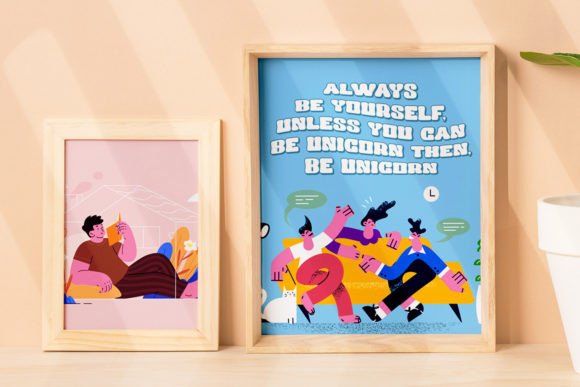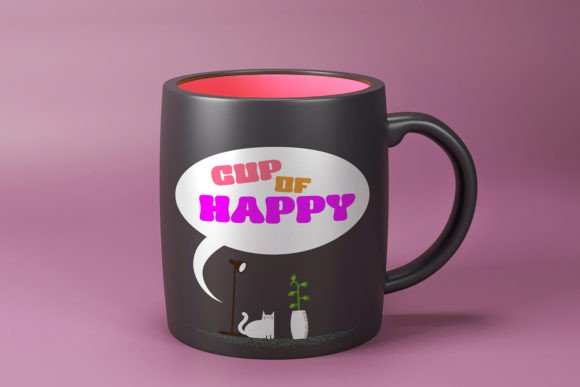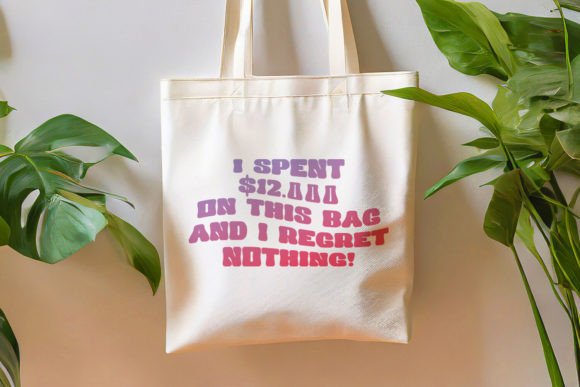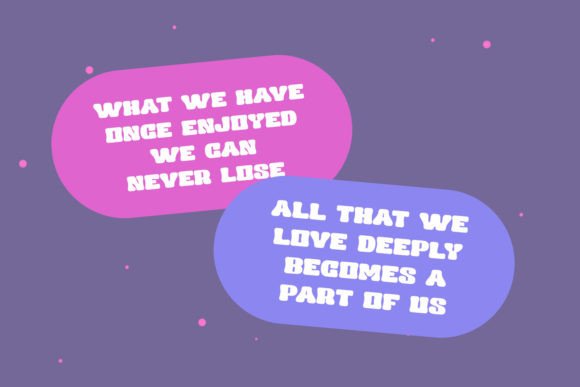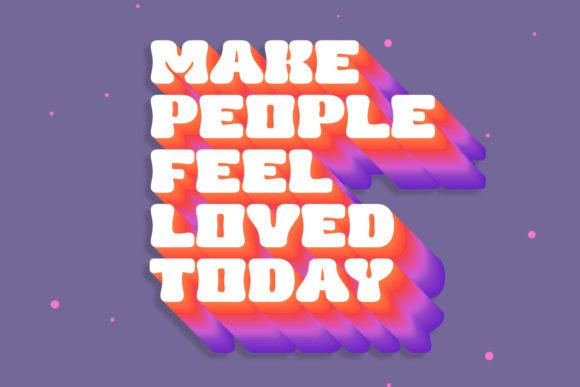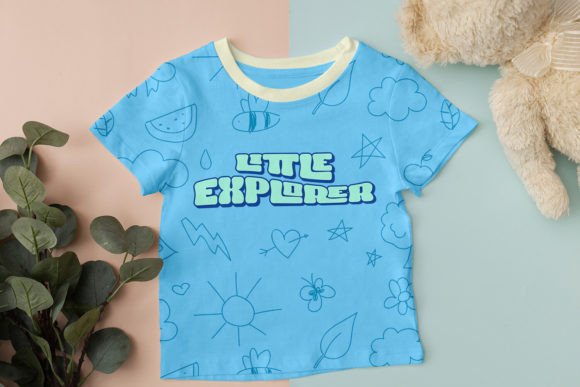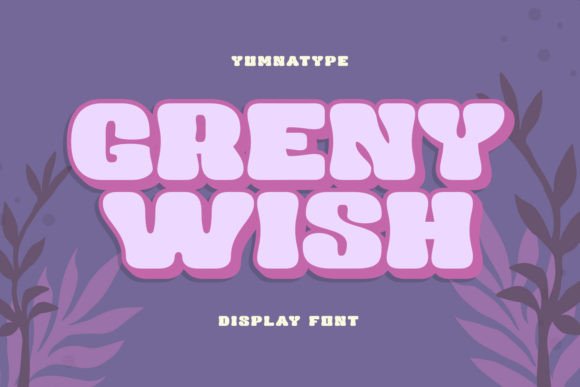
Introducing Greny Wish Font: The Ultimate Display Font for Bold Statements
In the world of typography, fonts play a crucial role in conveying messages, expressing emotions, and creating lasting impressions. For designers and crafters, finding the right font can make all the difference in their creative projects. If you’re looking for a font that exudes confidence, strength, and friendliness, look no further than Greny Wish Font. In this article, we’ll explore the features, benefits, and uses of Greny Wish Font, and why it’s an excellent choice for your next design project.
What is Greny Wish Font?
Greny Wish Font is an all-caps display font designed to make a strong statement. With a very bold weight, this font commands attention and delivers a powerful presence in any design. Its striking design makes it an excellent choice for creating memorable and eye-catching visuals. Whether you’re working on a branding project, advertising campaign, or social media graphics, Greny Wish Font is sure to leave a lasting impression.
Key Features of Greny Wish Font
So, what sets Greny Wish Font apart from other fonts? Here are some of its key features:
• Bold Weight: Greny Wish Font has a very bold weight, making it perfect for headlines, titles, and other display text.
• Low Contrast: The low contrast ensures a cohesive and solid appearance, making it easy to read and understand.
• Rounded Shapes: The rounded shapes add a friendly touch to the font, making it suitable for a wide range of design projects.
• All-Caps: Greny Wish Font is an all-caps font, making it perfect for creating bold and attention-grabbing text.
Benefits of Using Greny Wish Font
So, why should you choose Greny Wish Font for your next design project? Here are some benefits of using this font:
• Attention-Grabbing: Greny Wish Font is designed to grab attention and make a lasting impression.
• Versatile: The font’s friendly and approachable design makes it suitable for a wide range of design projects, from branding and advertising to social media and packaging.
• Easy to Read: Despite its bold weight, Greny Wish Font is easy to read and understand, making it perfect for display text.
• Unique: Greny Wish Font has a unique design that sets it apart from other fonts, making it perfect for designers who want to create something distinctive.
Use Cases for Greny Wish Font
Greny Wish Font is a versatile font that can be used in a variety of design projects. Here are some use cases for this font:
• Branding and Logo Design: Use Greny Wish Font to create a bold and memorable logo that makes a lasting impression.
• Advertising and Marketing: The font’s attention-grabbing design makes it perfect for advertising and marketing campaigns.
• Social Media Graphics: Use Greny Wish Font to create eye-catching social media graphics that stand out from the crowd.
• Packaging Design: The font’s friendly and approachable design makes it suitable for packaging design projects.
In conclusion, Greny Wish Font is a powerful and versatile display font that’s perfect for designers and crafters who want to make a bold statement. With its bold weight, low contrast, and rounded shapes, this font is sure to grab attention and leave a lasting impression. Whether you’re working on a branding project, advertising campaign, or social media graphics, Greny Wish Font is an excellent choice. So why wait? Download Greny Wish Font today and take your design projects to the next level!